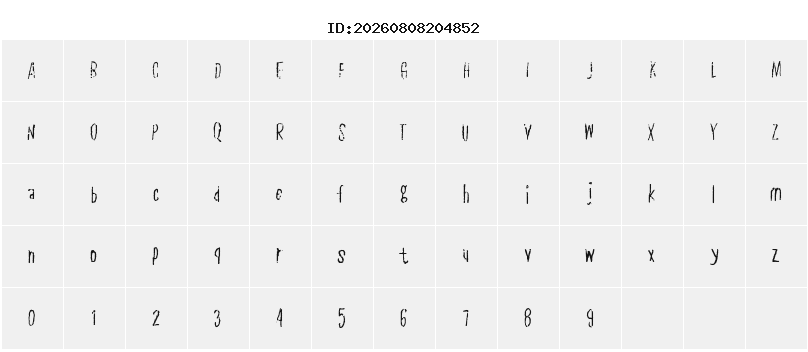
PlainSlice Preview
• Font Name: PlainSlice
• Font ID: PlainSlice:Version 1.00
• Full Font Name: PlainSlice
• Version: Version 1.00 September 1, 2013, initial release
• PostScript Name: PlainSlice
• Character Count: 69
• Designer: Xerographer Fonts Max Infeld
• Manufacturer: Xerographer Fonts
• Description: Made at Xerographer Studios in Chico,CA
About PlainSlice.ttf
PlainSlice.ttf is a modern, elegant sans-serif font designed for ultimate readability and visual harmony. Perfect for branding, headlines, web design, and print materials.